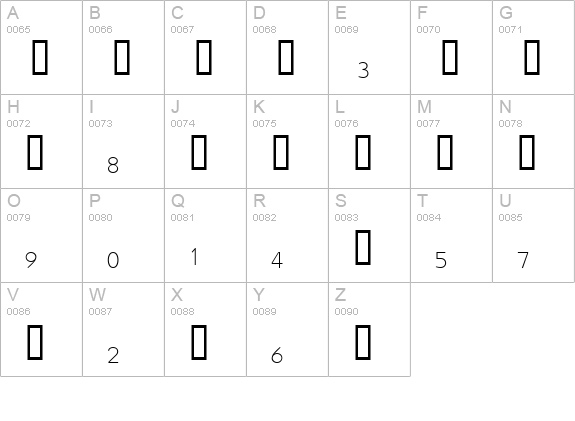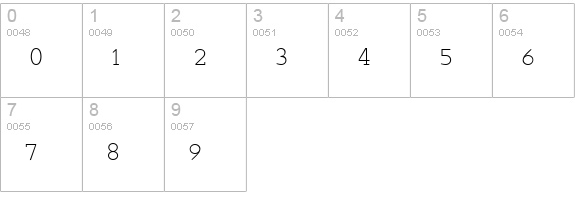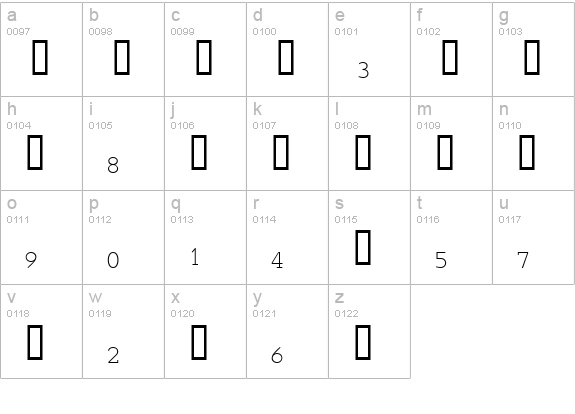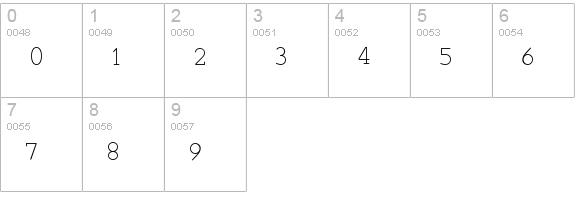
Bennington Fractions Font Details
Introducing Bennington Fractions font, a sophisticated and elegant typeface that exudes class and charm. This exquisite font is the perfect choice for adding a touch of luxury to your designs. With its unique and intricate fractions, Bennington Fractions font is perfect for creating eye-catching typography that stands out. What sets Bennington Fractions font apart is its versatility - whether you're working on a formal invitation, a stylish logo, or a high-end branding project, this font will elevate your design to the next level. The classic and timeless look of Bennington Fractions font makes it suitable for a wide range of applications, from print materials to digital projects. Best of all, Bennington Fractions font is completely free to download at FontsMarket.com. So why wait? Elevate your design projects with the exquisite beauty of Bennington Fractions font today.